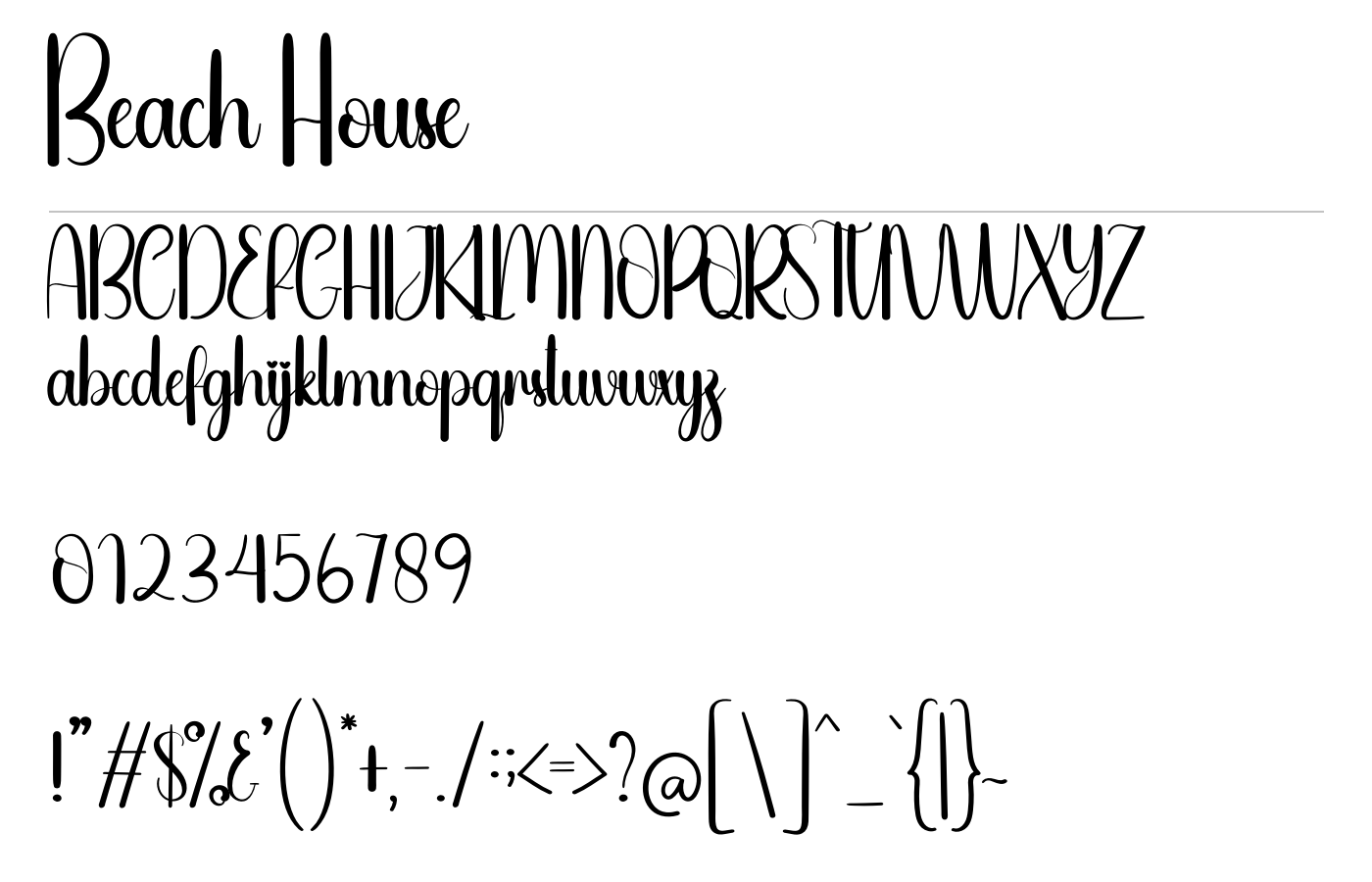
Beach House is a playful and stylish script font featuring thin, elongated letterforms with a casual, hand-drawn feel. Its tall, slender characters and smooth curves give it an elegant yet approachable personality, making it ideal for branding, invitations, and creative projects that want to convey warmth and charm. This font works best in headlines and decorative uses where a light, airy touch is desired.
Beach House Font
About Beach House Font